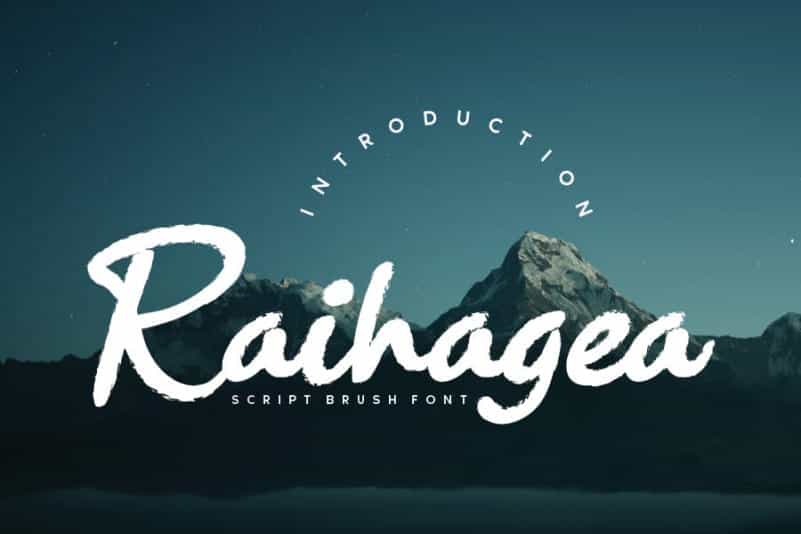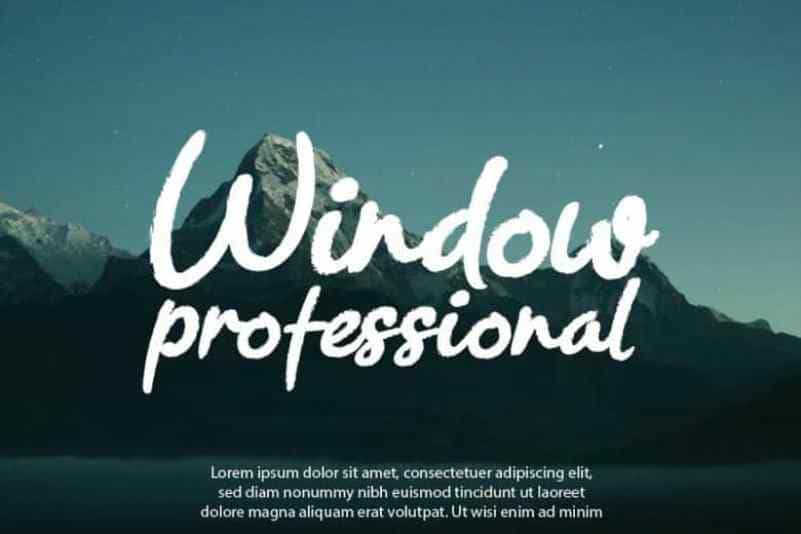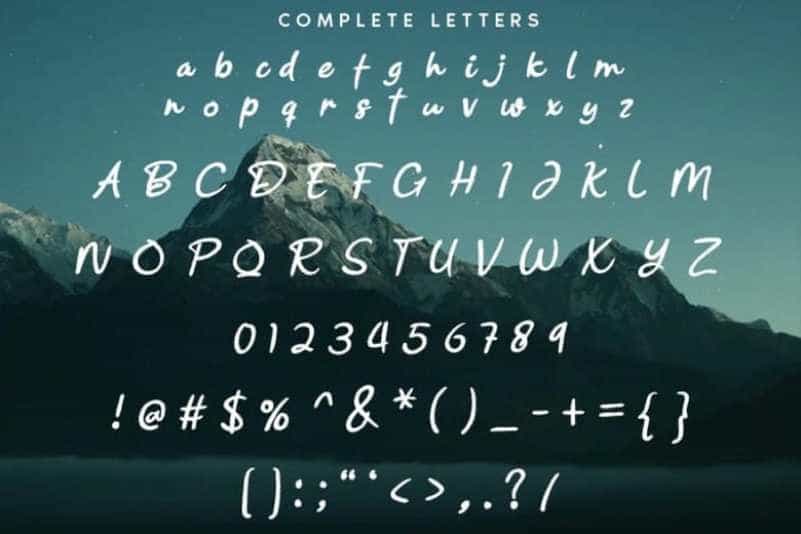
Discover Raihagea Brush Script Font, part of the Brush Script collection—a versatile and unique font perfect for adding a personal touch to your projects. Download it for free and enjoy crafting designs with style, from invitations to social media posts. This font is available exclusively for personal use, giving you the freedom to create without limits. Unlock your creativity with Raihagea Brush Script Font today!
This brush typeface can be described as the Raihagea that has received a gorgeous touch and became the viewer’s beloved. You will completely fall in love with it because is so versatile and you can come up with the most amazing designs!